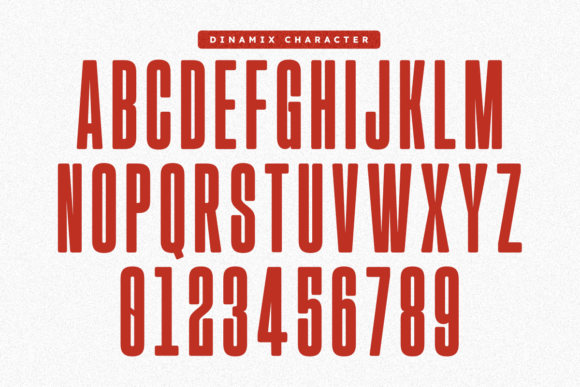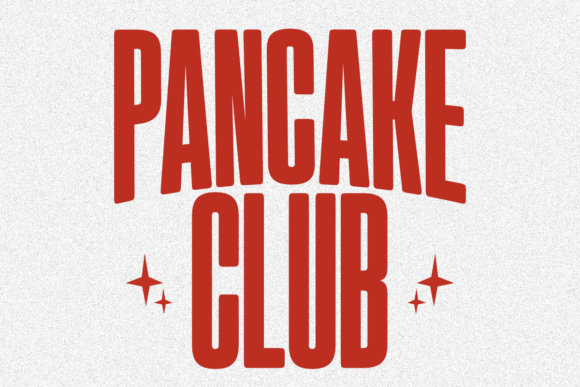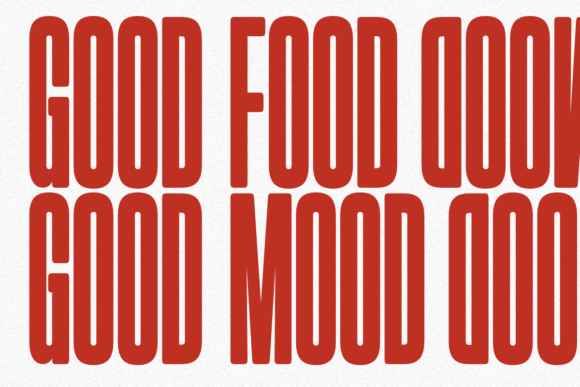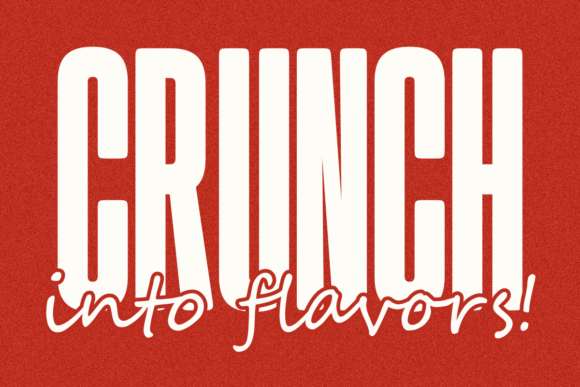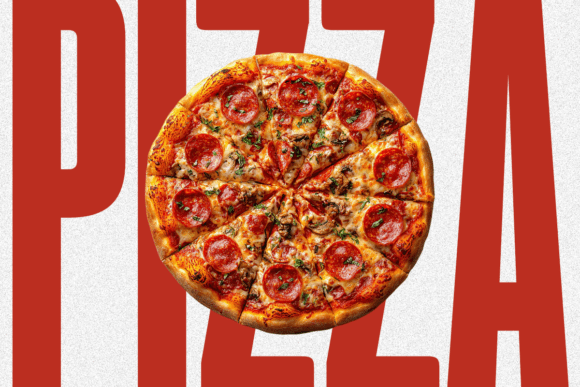
Introduction to Nugget Font
As a designer, there’s nothing quite like the thrill of stumbling upon a game-changing typeface that elevates your creative project to the next level. For many, that moment came when they discovered the Nugget Font – a bold and versatile retro condensed sans font that masterfully blends vintage nostalgic charm with a clean, modern aesthetic.
With its tall and solid structure, Nugget Font commands attention while maintaining a sleek and professional elegance. Whether you’re creating high-impact visual storytelling, trendy t-shirts, or social media graphics, this design resource is an essential asset for any professional toolkit. Its smooth, slightly rounded edges give it a warm, approachable feel reminiscent of classic 70s and 80s typography, making it a valuable addition for designers looking to add a touch of timeless character to their work.
Key Features of Nugget Font
- High-quality font design with a unique, playful style, perfect for creative projects.
- Comes with a transparent background, allowing for easy customization and versatility.
- Font size is scalable, with a resolution of up to 1000 DPI, ensuring crisp and clear display on various devices.
- Designed to be highly legible, even at small font sizes, making it ideal for a wide range of creative projects.
- Perfect for use in digital and print design, including logos, graphics, and typography for branding and marketing materials.
Honest Review: Nugget Font
As a designer, I’m always on the lookout for unique and high-quality design resources to elevate my creative projects. The Nugget Font caught my eye, and I decided to give it a try. Here’s my honest review.
Limitations: ⚠️ While the Nugget Font is a great addition to any design arsenal, it’s worth noting that the font family is relatively small. This may limit its use in certain situations, such as when you need a wide range of font styles. Additionally, the font’s modern aesthetic may not be suitable for all design projects, particularly those with a more traditional or vintage feel.
Overall, I’m impressed with the Nugget Font. It’s a great free download that can add a lot of personality to your designs. Just be aware of its limitations, and use it wisely.
- Perfect for modern, playful design projects
- Relatively small font family
- Not suitable for traditional or vintage designs
Nugget Font is versatile and can be used in a variety of creative projects, including branding, advertising, and digital art. Its unique design makes it perfect for adding a touch of personality to your work.
To get the most out of Nugget Font, experiment with different font sizes, colors, and styles to achieve the desired effect. You can also combine Nugget Font with other design elements to create a cohesive and visually appealing design.